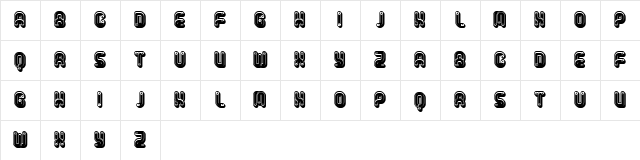
Brigadier Regular
Design Context for Brigadier
Brigadier is a composed and adaptable typeface that performs quietly and consistently across a wide range of design contexts.